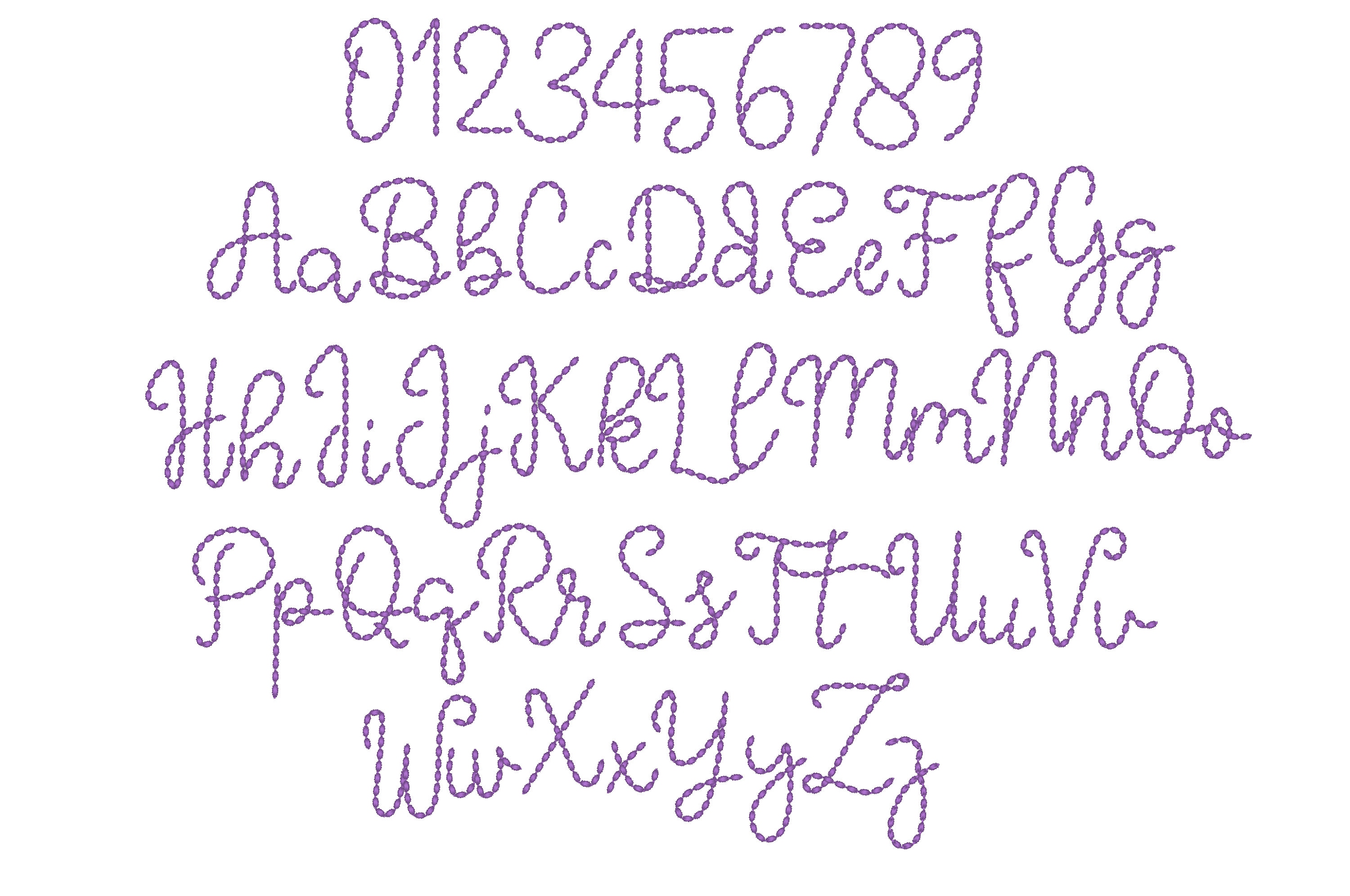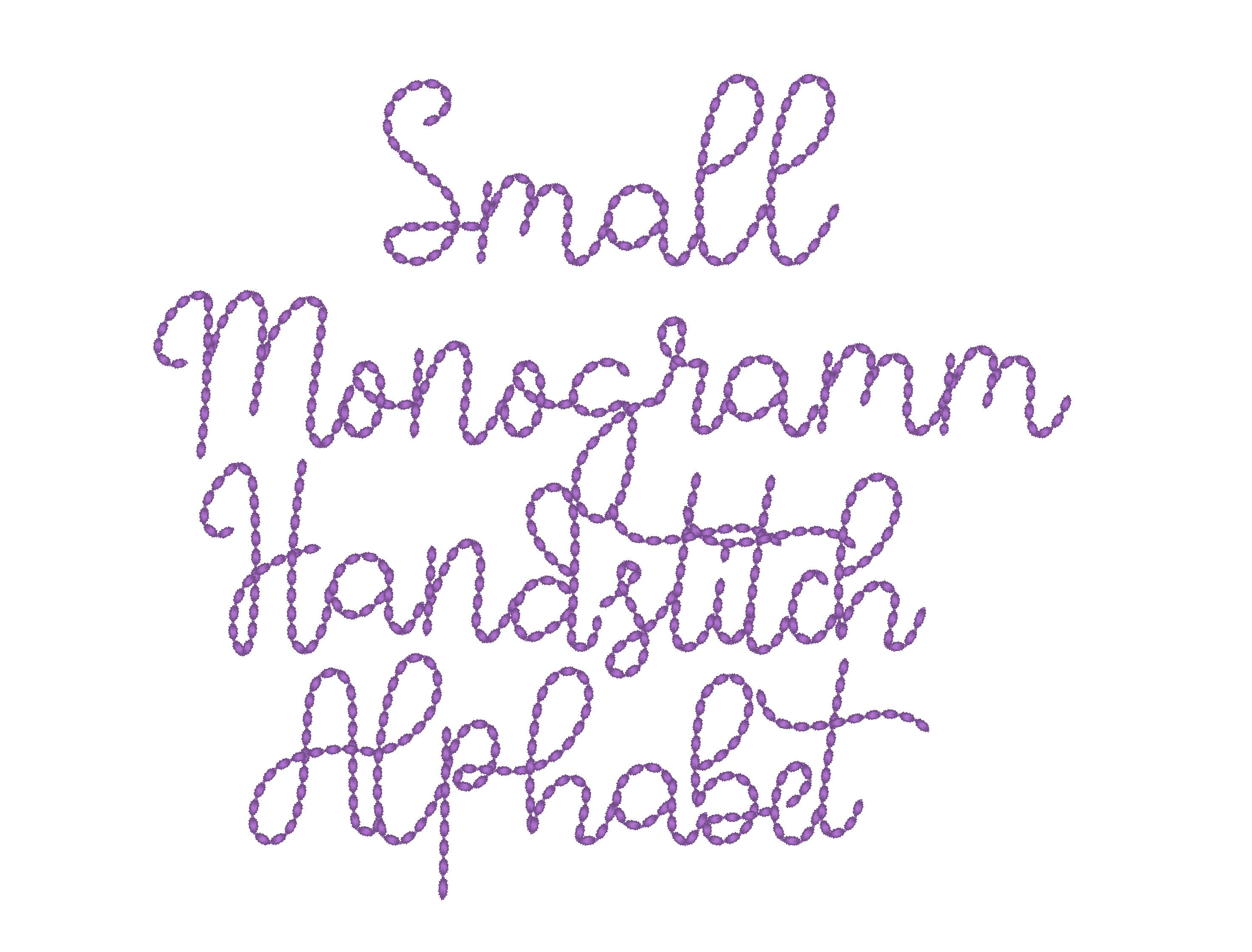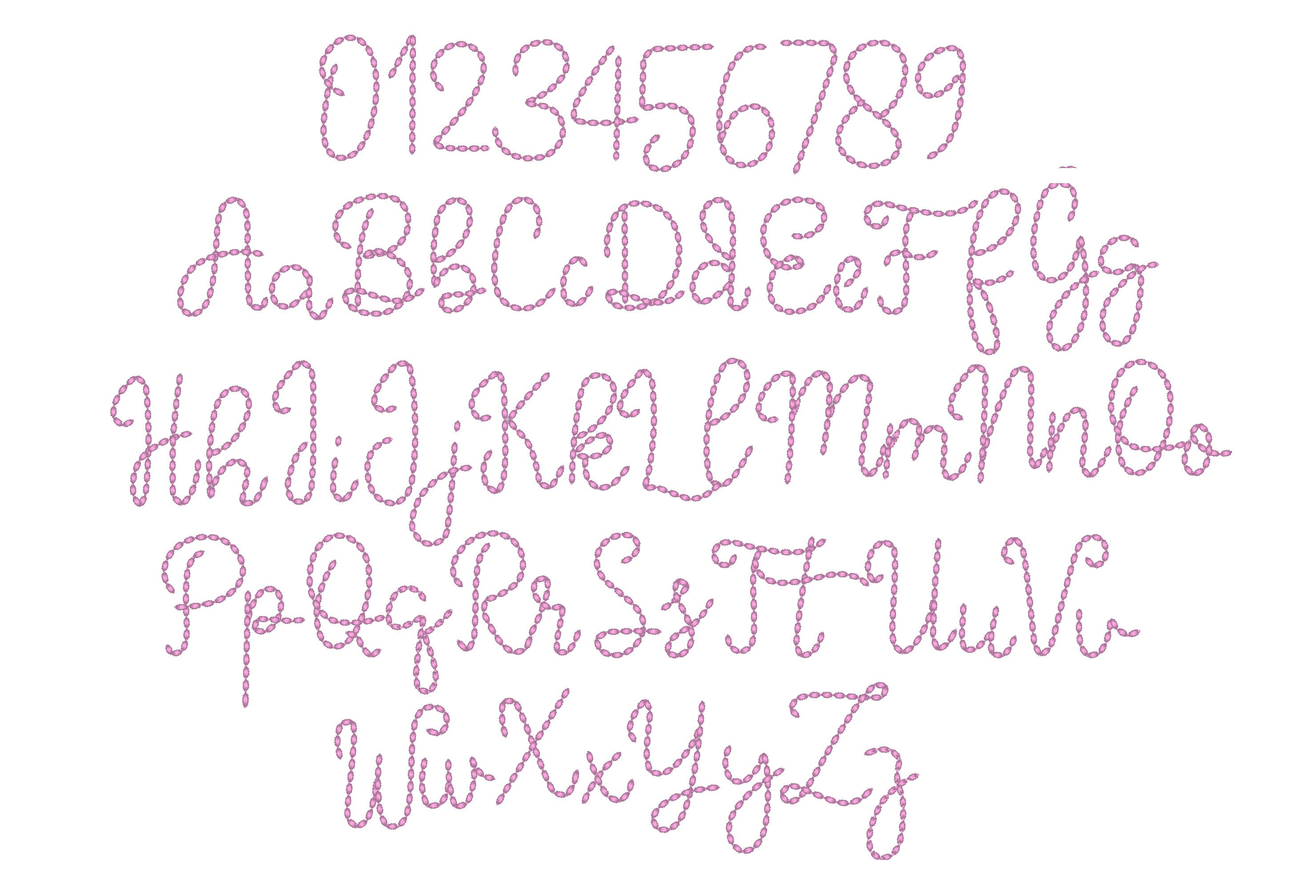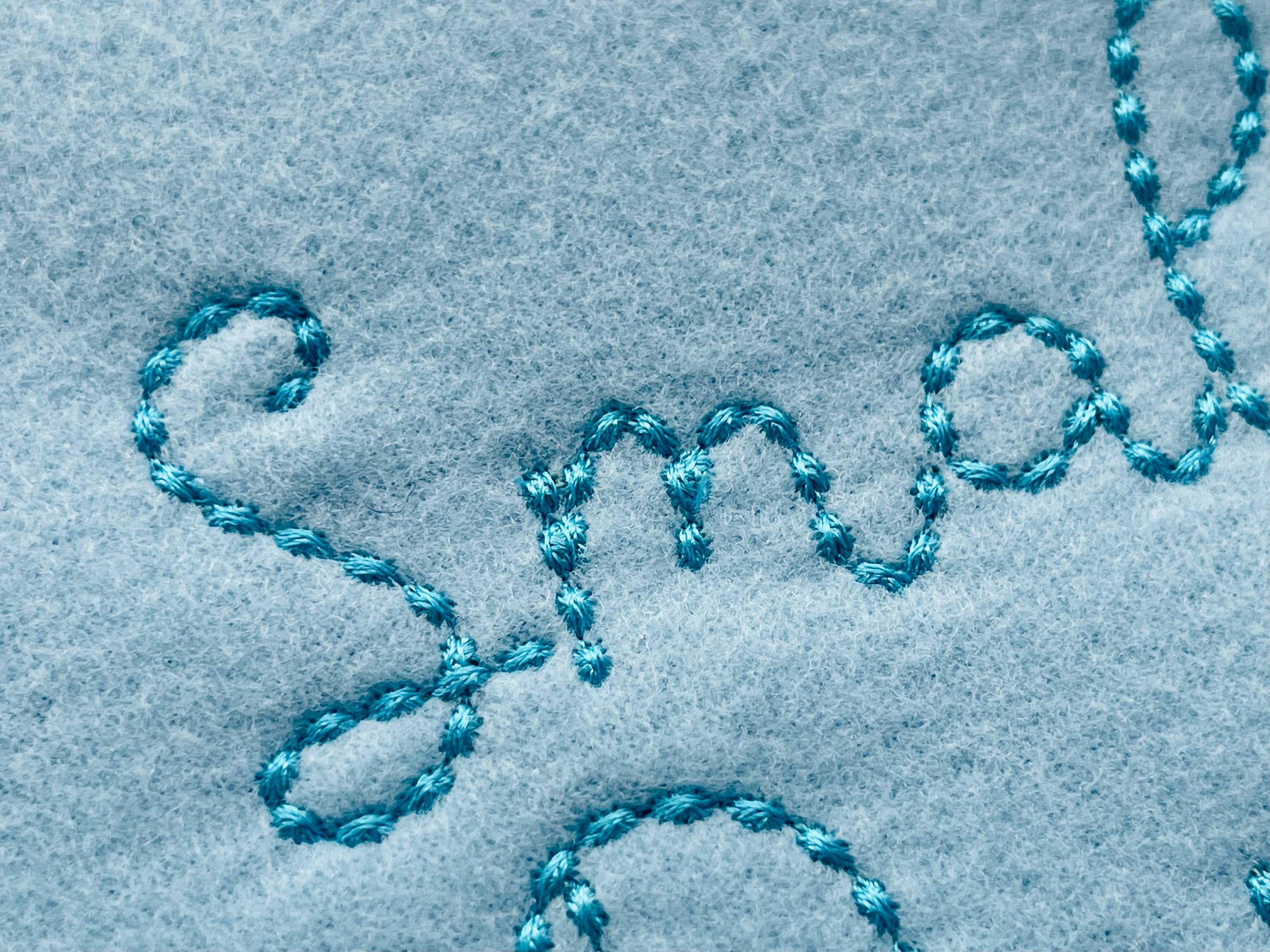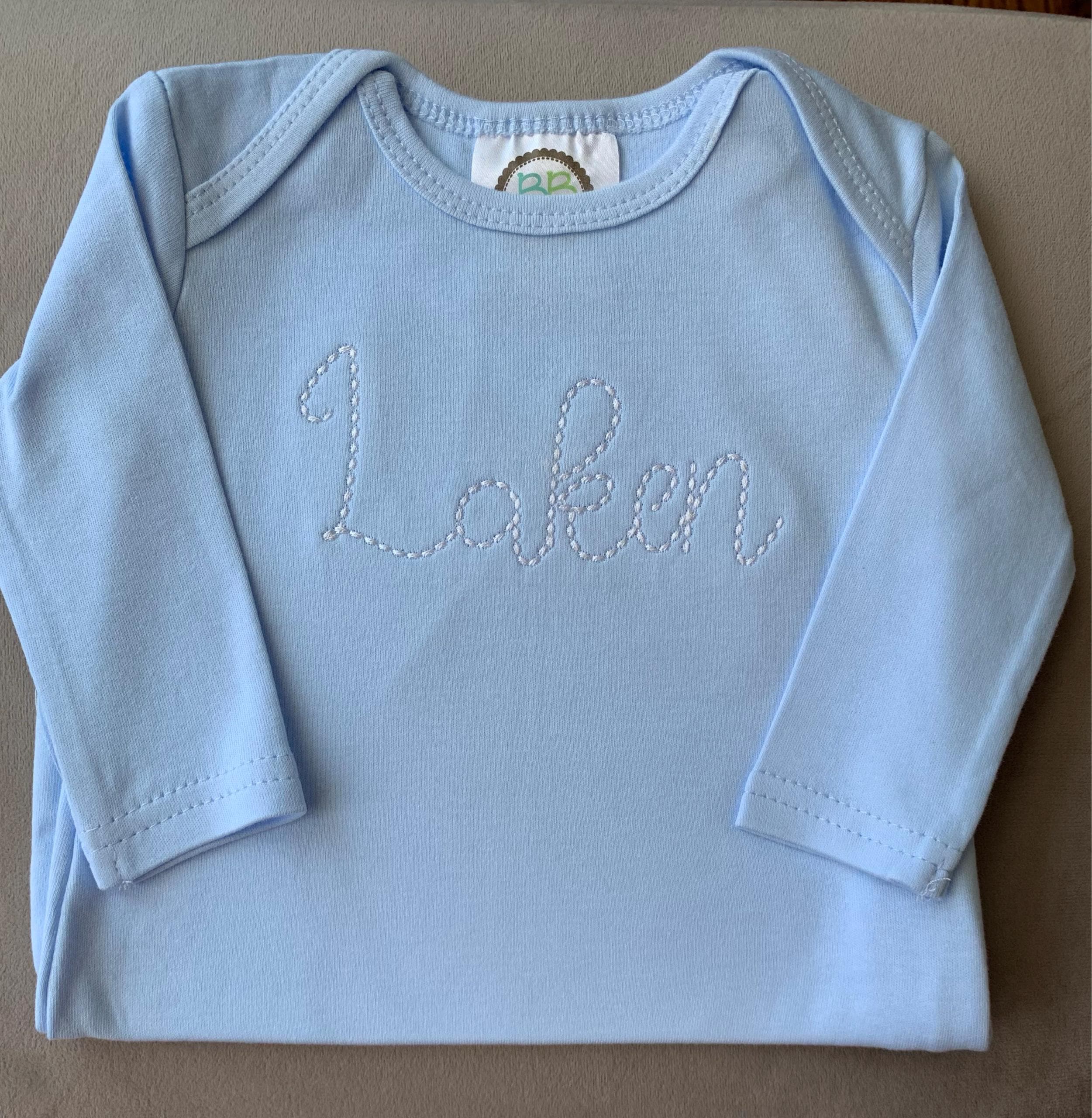
Hand stitch effect FONT seed bean stitch script alphabet letters and numbers machine embroidery designs for kids name or saying BX included
Entire alphabet A-Z uppercase and lowercase letters, and numbers 0-9